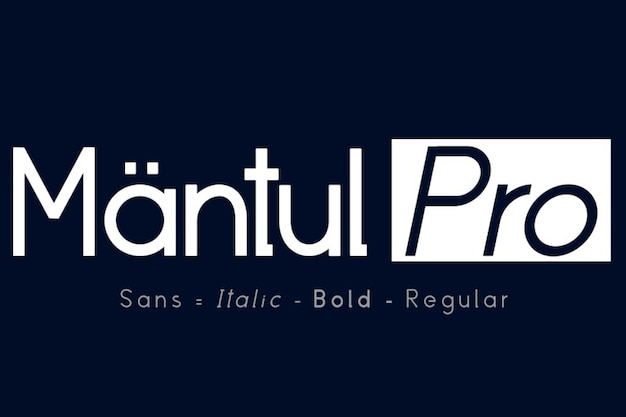
Mantul Pro Font
Mäntul Pro font is the 'less is more' rockstar in the font world—simple, but oh-so-fancy. It's like your cool friend who effortlessly stands out in a crowd. Clean lines with a touch of sophistication make it the epitome of coolness. It's that font you can rely on to make a statement without trying too hard—a true blend of simple elegance and undeniable cool factor